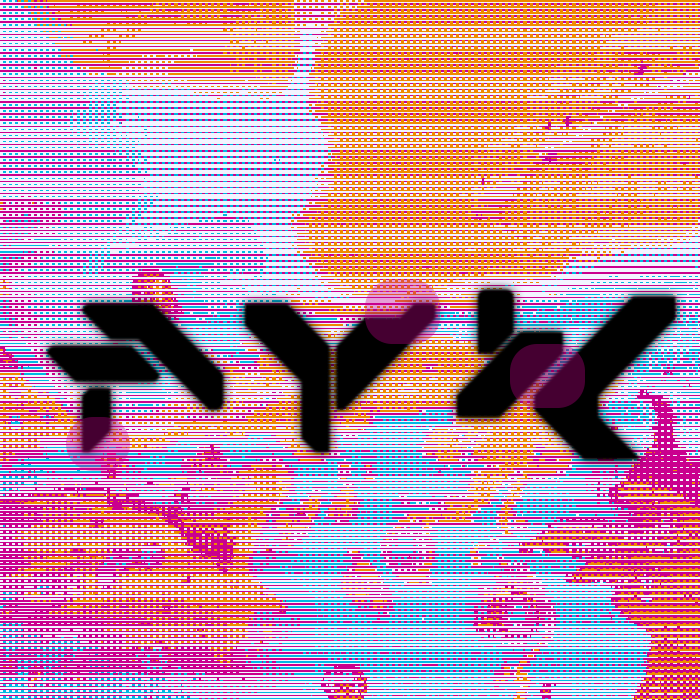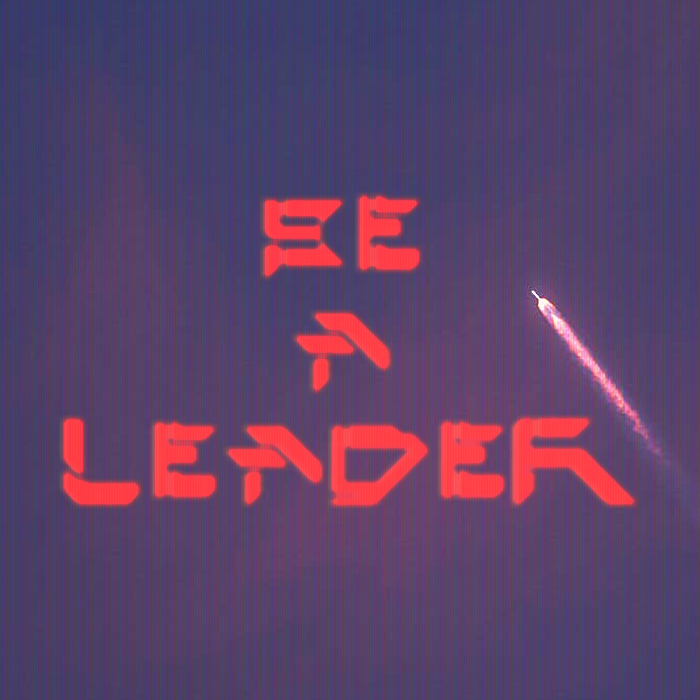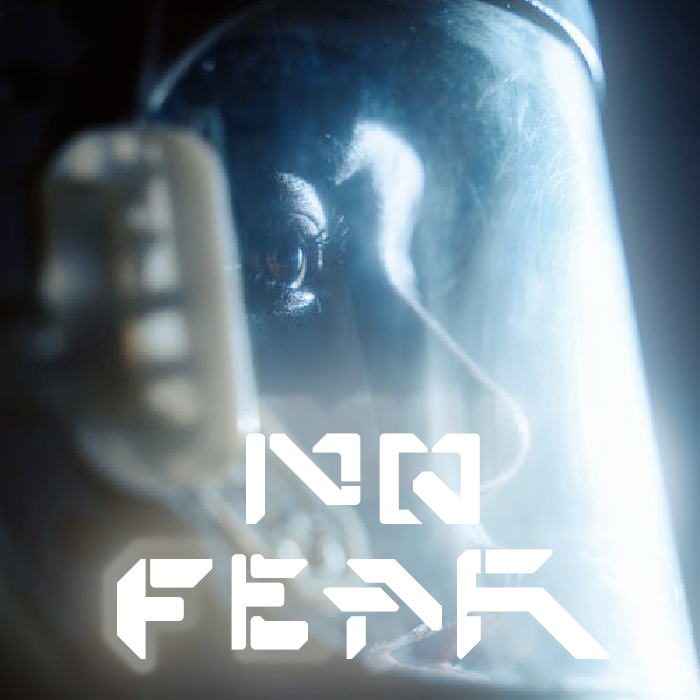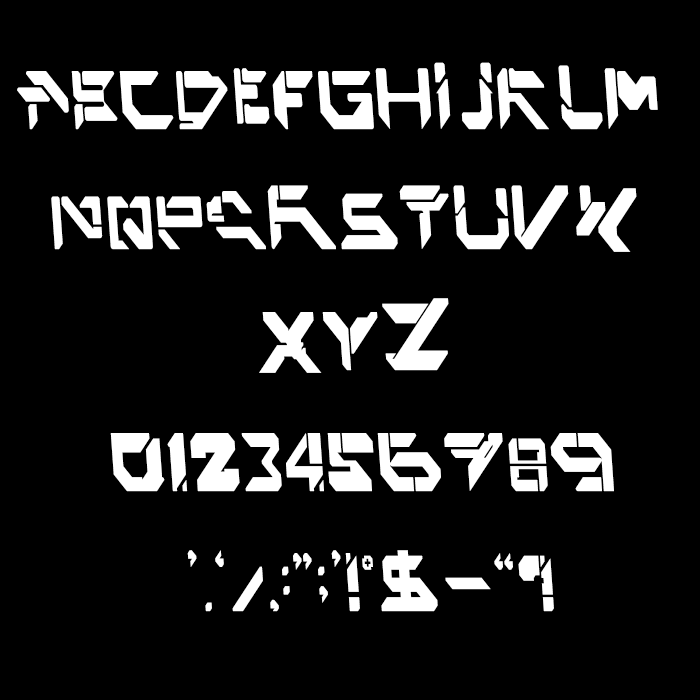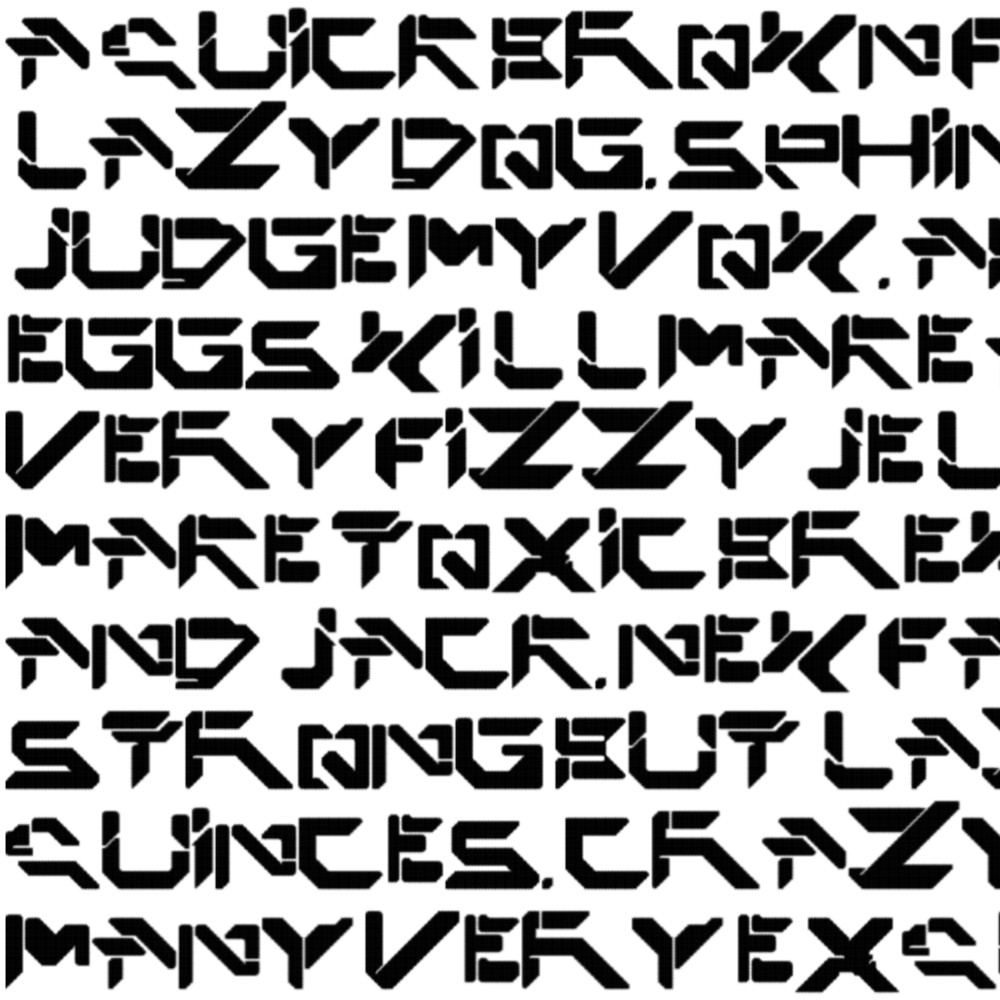
• VECTOR-X is a futuristic font inspired by the bold visual language of classic and modern sci-fi cinema. Its sharp angular cuts, segmented forms, and aerodynamic geometry echo the interface graphics, spacecraft hull markings, and dystopian city signage made for cyberpunk worlds, deep-space missions, and holographic environments.
The sample text with VECTOR-X looks like this. There are nice, creative bits in your work, and a tremendous room for improvement.